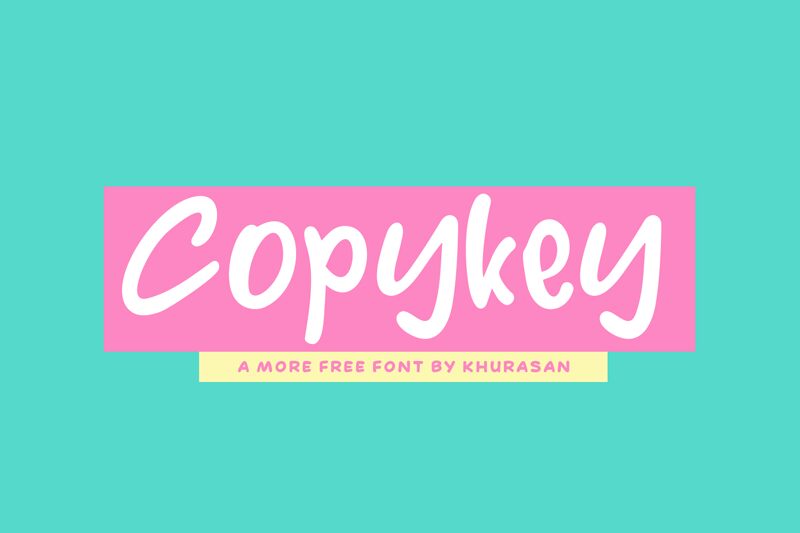
Copykey is a vibrant and playful handwritten font created by Khurasan. Its unique style and personality make it perfect for projects such as greeting cards, invitations, branding, logo design, social media graphics, and more. The semi-bold typeface adds emphasis to your message while the slightly narrow width allows for a creative use of space. Copykey's whimsical nature is perfect for any project that requires a touch of fun and personality. Use this font to add a personal touch to your designs and bring them to life!
Copykey